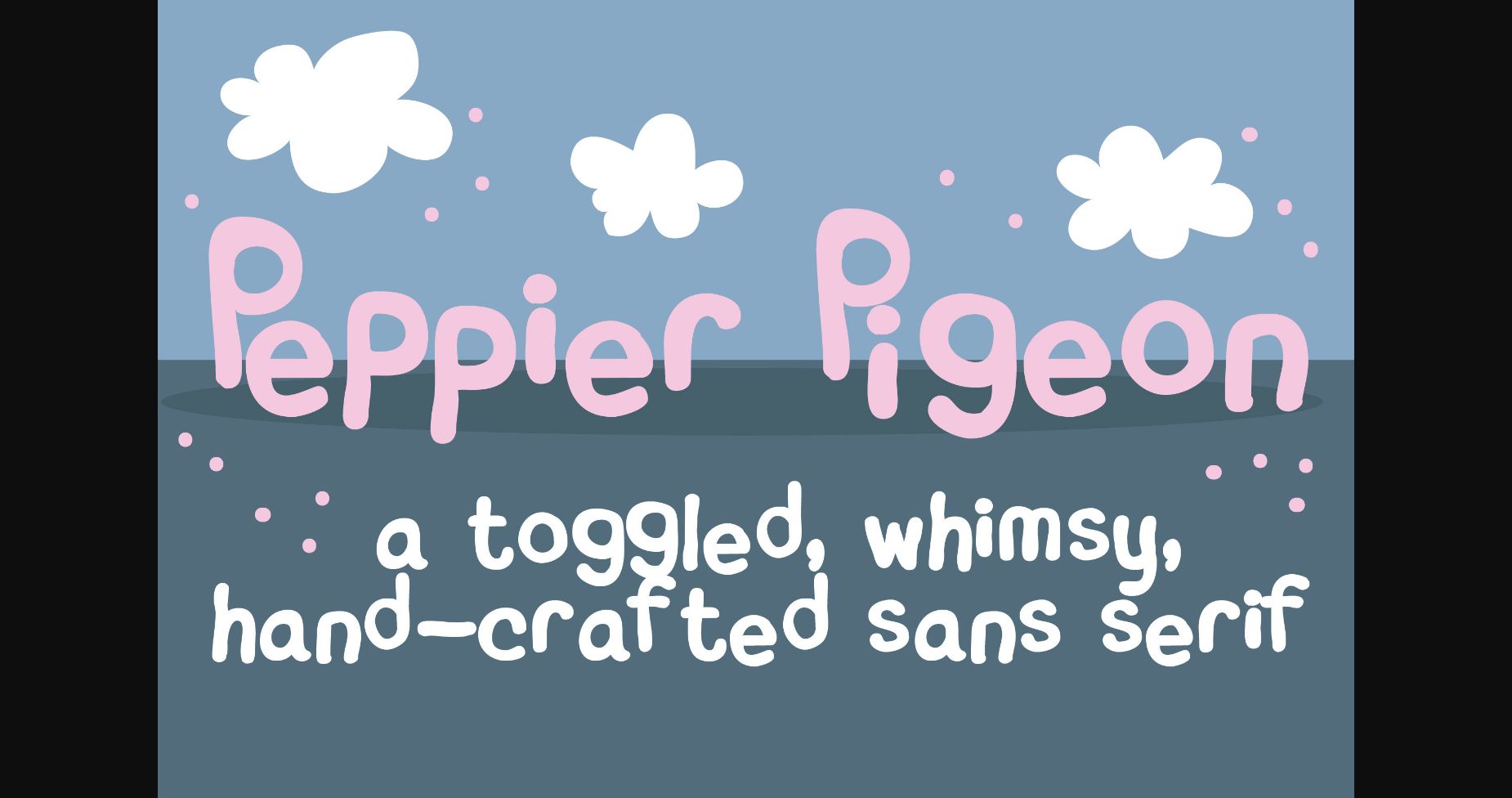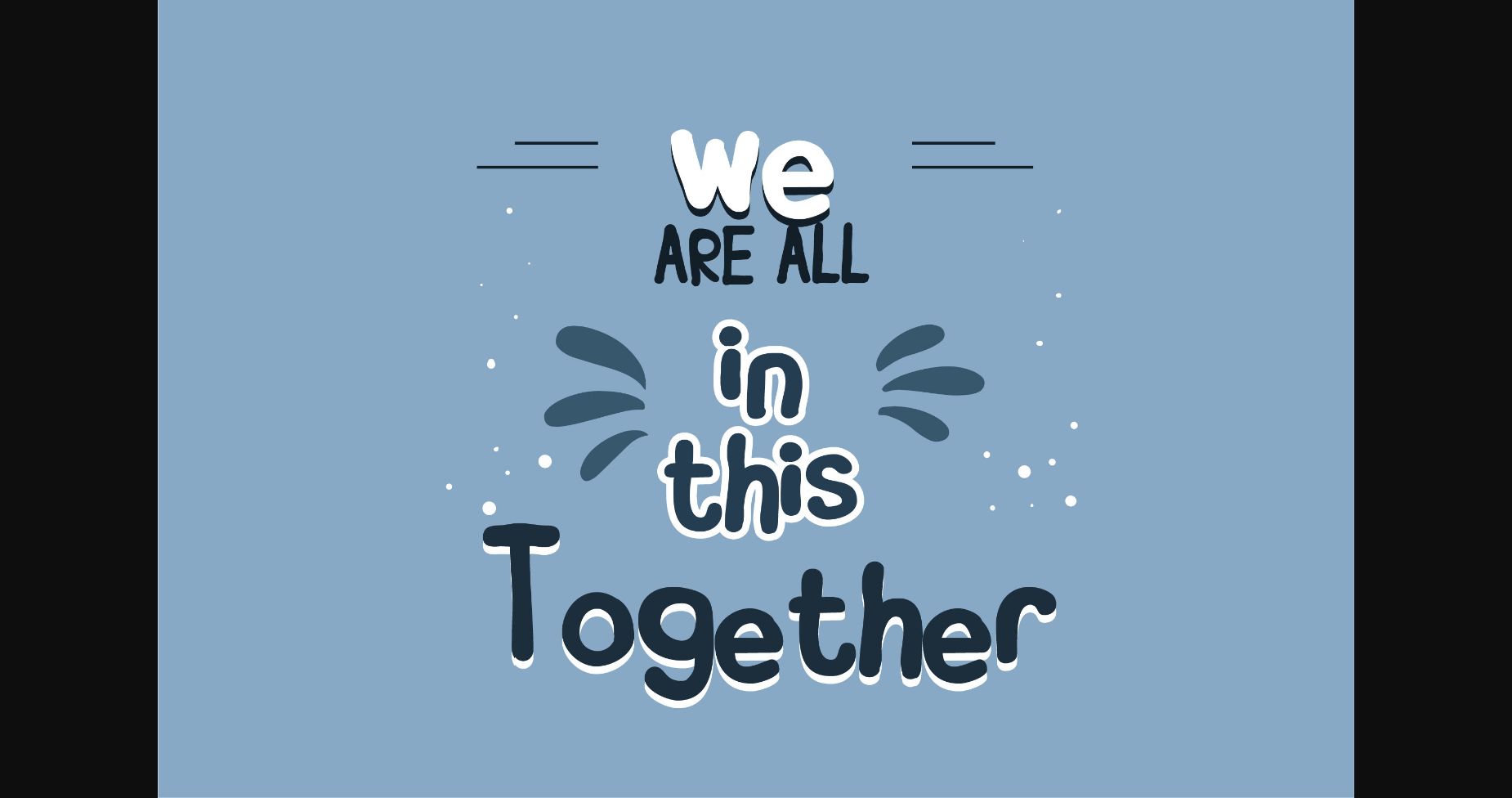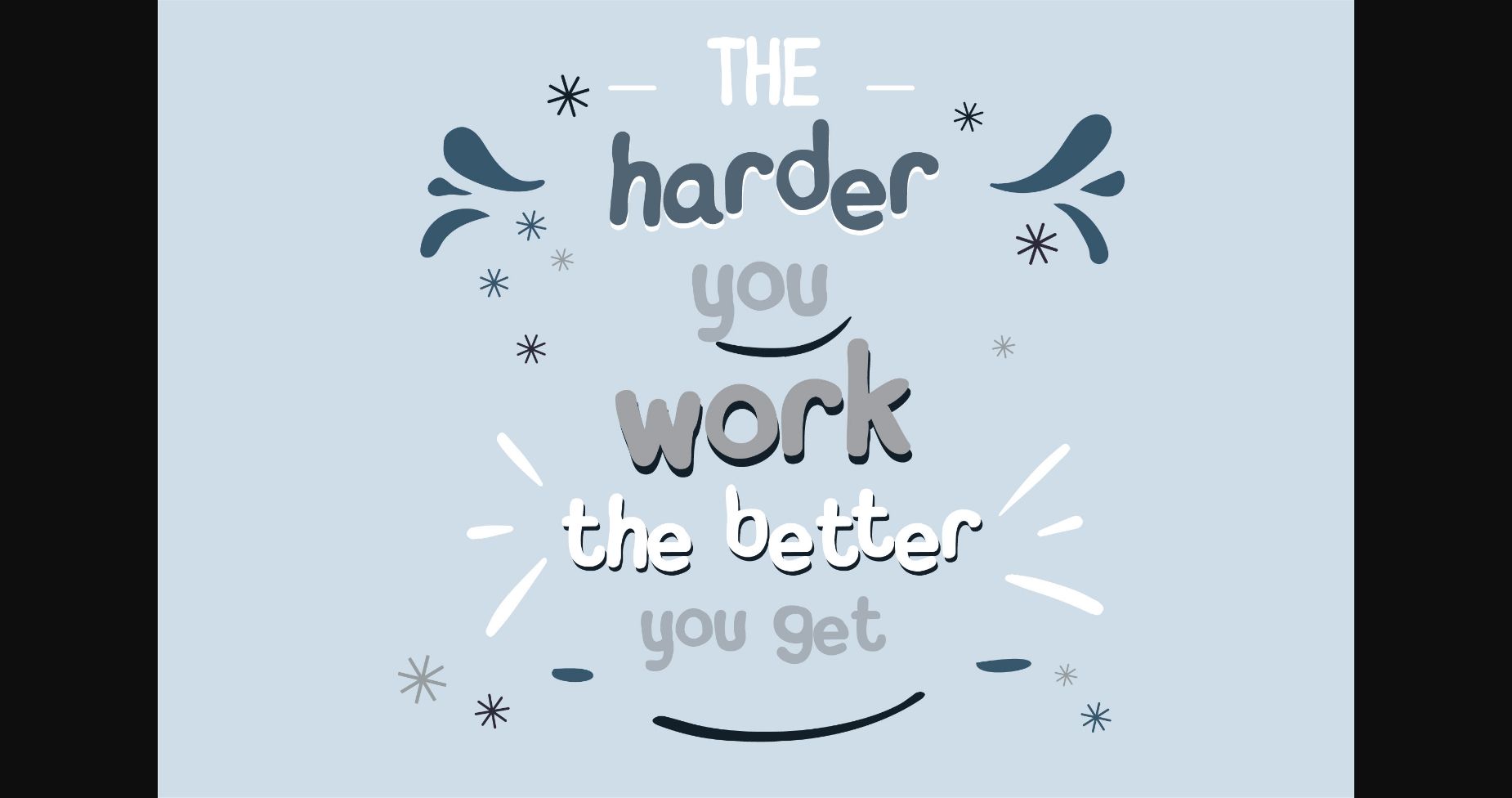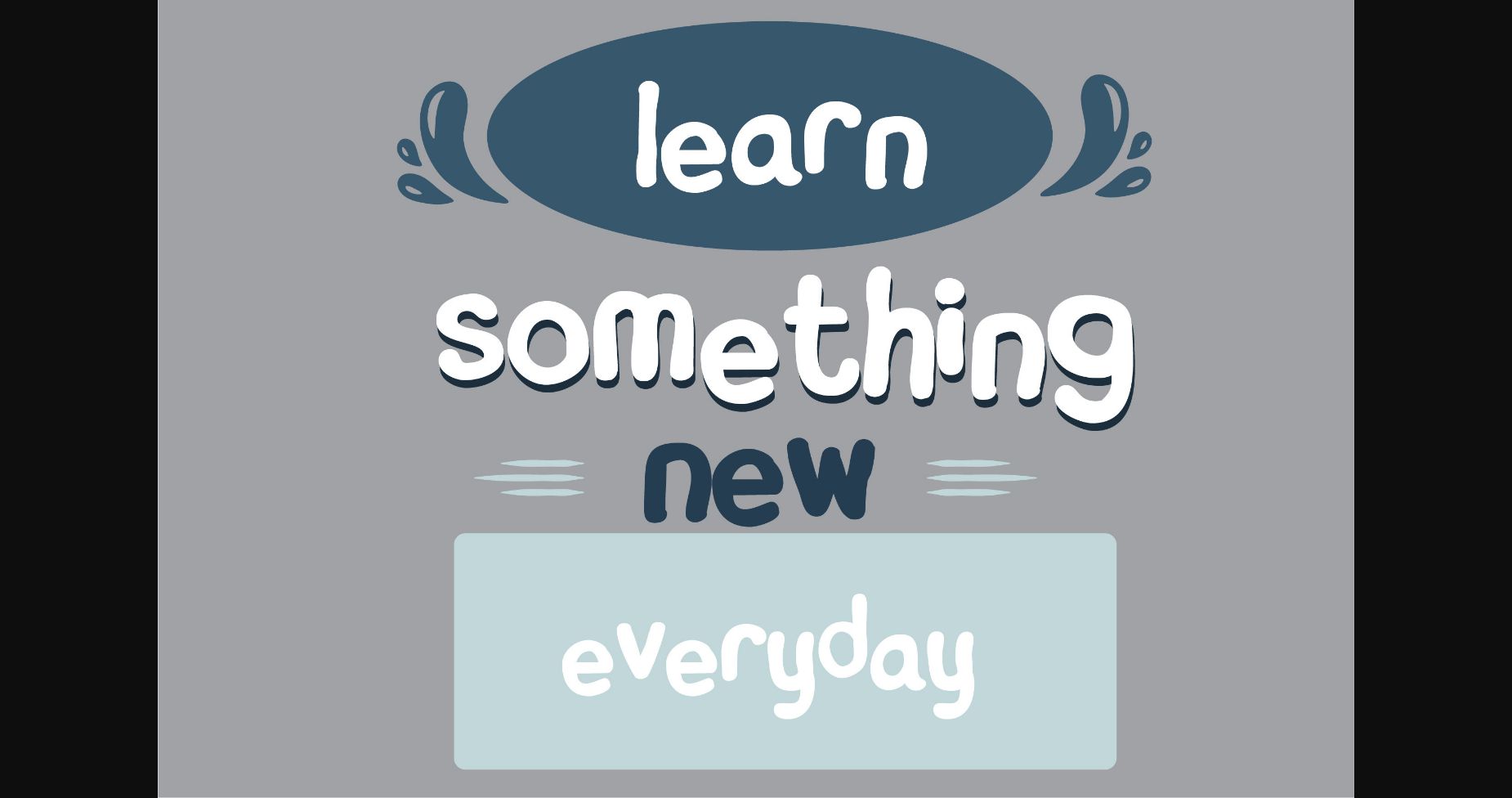
About Peppy Pigeon Font
Peppy Pigeon is a hand-crafted sans serif that has a very hand-made look, with a toggled baseline. It’s perfect for any item that needs playful typography.